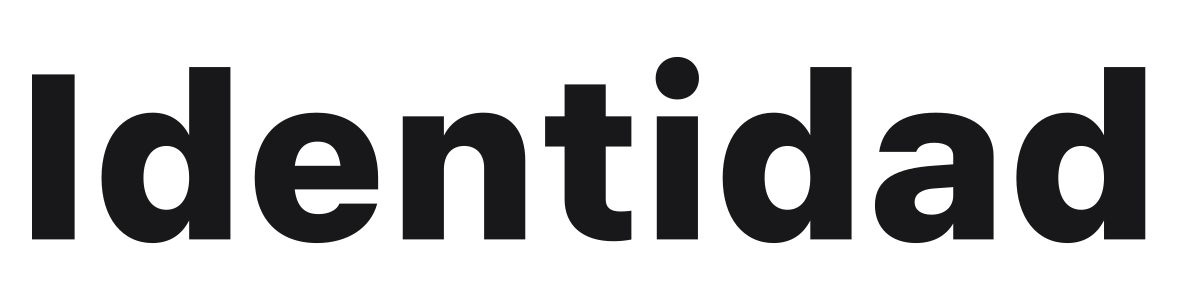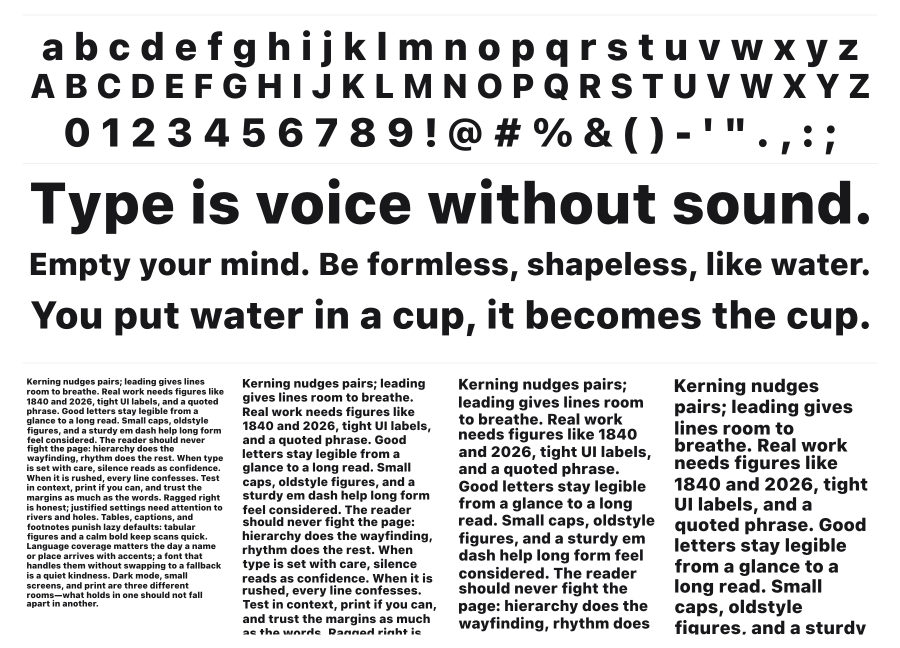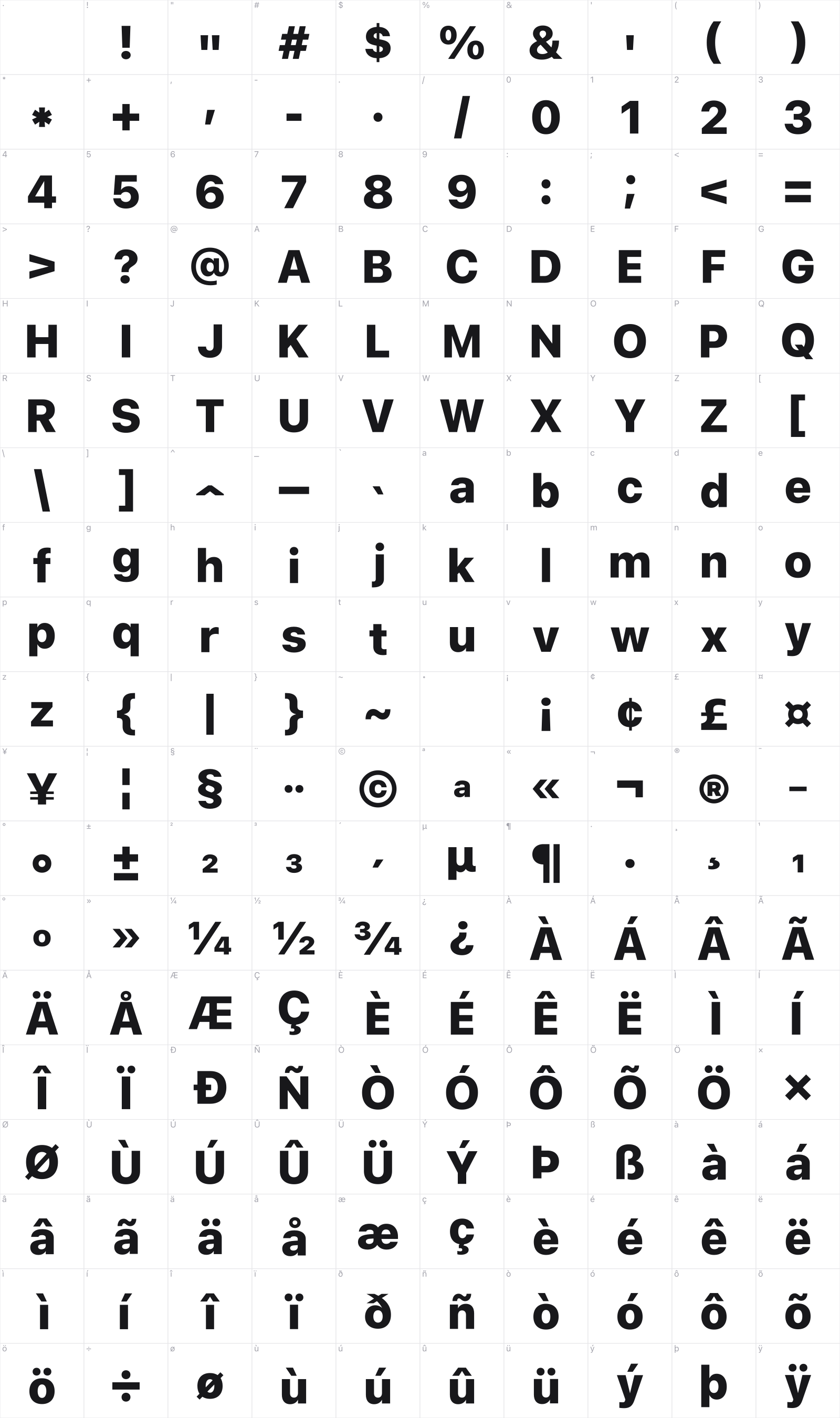
Identidad
by Punchform · Website
Identidad is a contemporary humanist sans-serif family built as a serious workhorse across nine weights with matching italics. Its wide proportions, large x-height, and softly rounded terminals strike a balance between confident and approachable, making it equally comfortable at headline sizes and in extended text. With 710 glyphs, 19 OpenType features, and coverage for 377 languages, it is clearly designed for demanding real-world use.